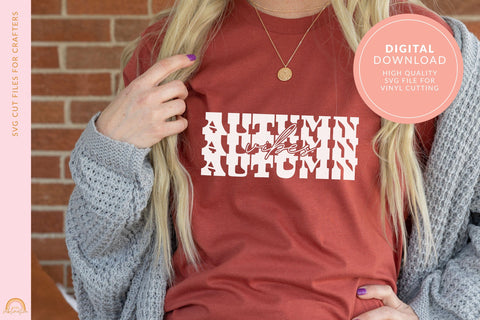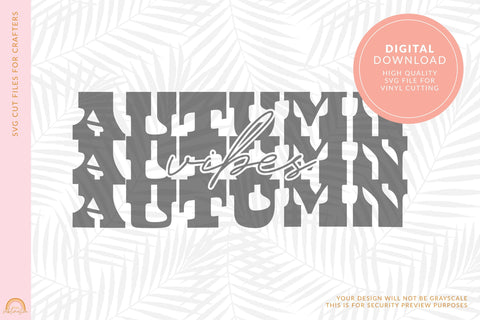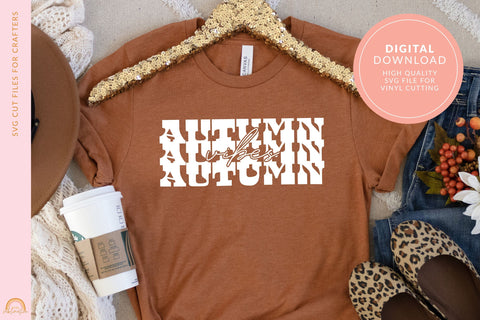
Autumn SVG Autumn Vibes with Retro Font Print for Shirts HM
This fun Autumn SVG file design features a stacked retro Autumn Vibes phrase that makes dressing for the fall fun with your favorite vinyl craft cutting machines.